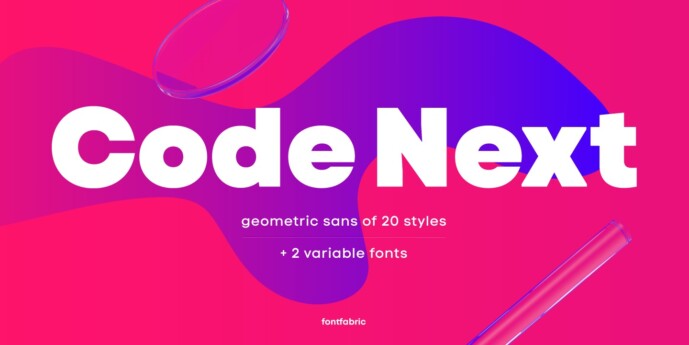
Code Next Font Family
We’re revealing the stand-alone type family Code Next—a staggering evolution from Code Pro in functionality, versatility, and application. The transformation includes 6 new weights, 10 new Italics, full support of Extended Cyrillic and Greek, full redesign and glyphs refinement, 2 variable fonts, to name but a few.
These fit any modern design in print, web, and display visualization. Developed to go above and beyond, Code Next comes prepared for multi-script projects with Extended Latin, Extended Cyrillic, and Greek.
Explore Code Next’s versatility and switch things up with the help of 2 variable fonts, more than 1280 glyphs, and an extensive OpenType features set including small caps, standard and discretionary ligatures, contextual and stylistic alternates, stylistic sets, case sensitive forms, and much more.